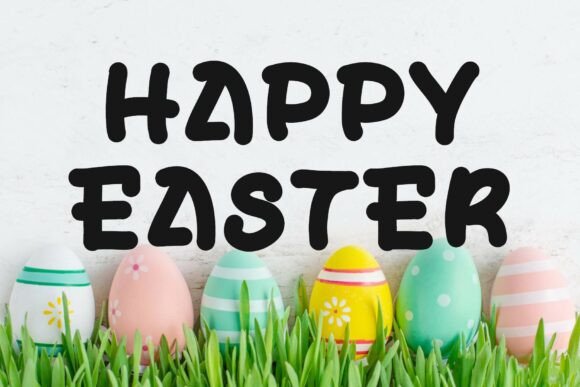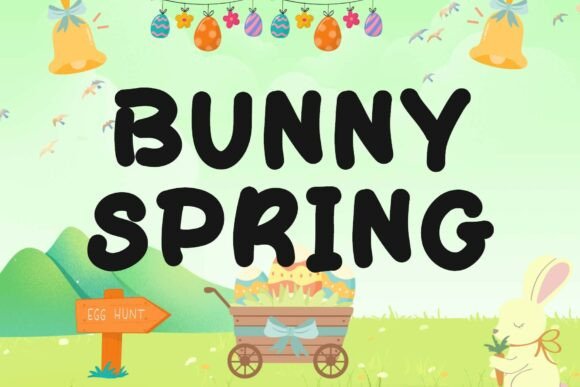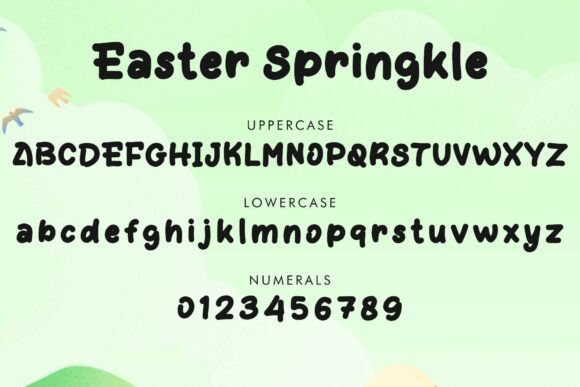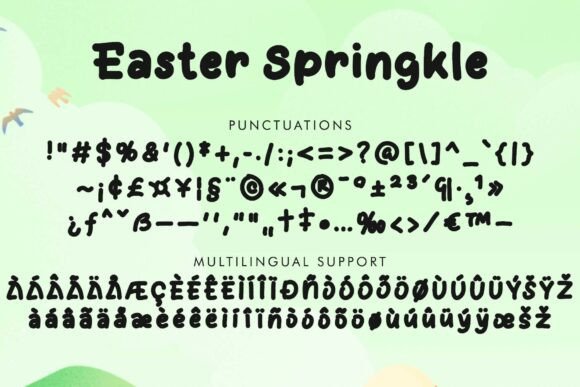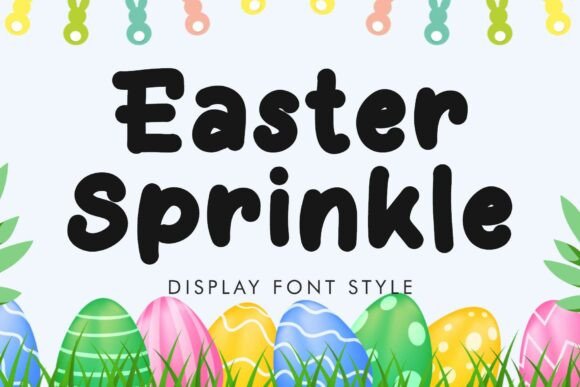
Easter Sprinkle Font: The Perfect Addition to Your Spring and Easter Designs
Are you looking for a unique and fun display font to elevate your spring and Easter designs? Look no further than the Easter Sprinkle Font! This delightful font is perfect for adding a touch of whimsy and festivity to your projects, from banners and branding to stickers, logos, and more.
What Makes Easter Sprinkle Font So Special?
The Easter Sprinkle Font is a one-of-a-kind display font that features uppercase and lowercase letters, numerals, punctuations, and multilingual support. This means you can use it to create a wide range of designs, from simple Easter greetings to more complex branding and advertising materials.
One of the standout features of the Easter Sprinkle Font is its playful, sprinkles-inspired design. The font is perfect for spring and Easter-themed projects, but it’s also versatile enough to be used for other holidays and celebrations, such as Mother’s Day, Teacher’s Day, weddings, and Christmas.
The Easter Sprinkle Font is a dream come true for designers and crafters who love to create unique and eye-catching projects. Whether you’re designing digital products, such as printable art and planners, or creating handmade crafts, like stickers and cards, this font is sure to add a touch of magic to your work.
With the Easter Sprinkle Font, you can:
• Create stunning Easter and spring-themed banners, signs, and posters
• Design adorable stickers, washi tape, and other craft supplies
• Develop unique branding and packaging for your business or product
• Make beautiful greeting cards, invitations, and stationery
Multilingual Support and Compatibility
The Easter Sprinkle Font is designed to be versatile and compatible with a wide range of languages. With multilingual support, you can use this font to create projects in various languages, making it perfect for global brands, international events, or multilingual communities.
Tips for Using the Easter Sprinkle Font
To get the most out of the Easter Sprinkle Font, here are some tips and ideas:
• Experiment with different colors and textures to add depth and interest to your designs
• Combine the Easter Sprinkle Font with other fonts and graphics to create unique and eye-catching compositions
• Use the font to create custom illustrations, such as Easter eggs, spring flowers, or holiday-themed icons
• Don’t be afraid to get creative and try out new and innovative design ideas!
The Easter Sprinkle Font is a fun, unique, and versatile display font that’s perfect for adding a touch of whimsy and festivity to your spring and Easter designs. With its multilingual support, compatibility, and wide range of uses, this font is a must-have for designers and crafters looking to create stunning and eye-catching projects.